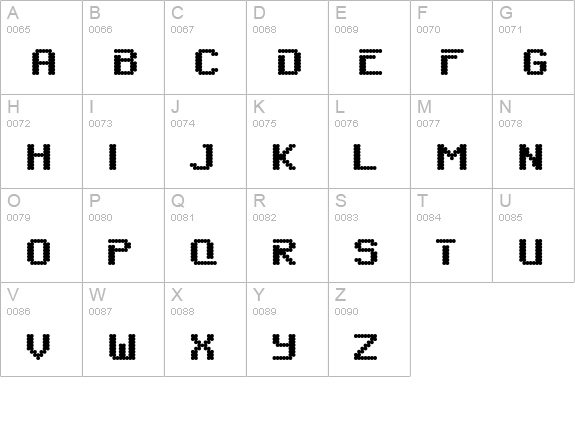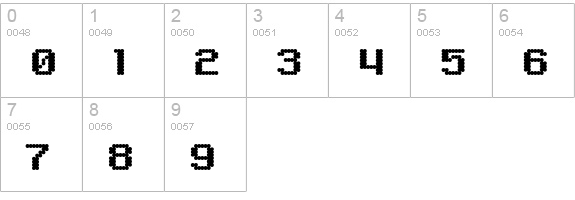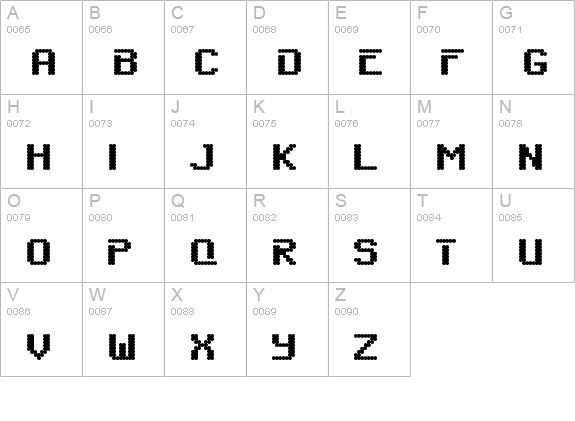
6809 Chargen Font Details
The 6809 Chargen font is a unique and stylish typeface that is perfect for adding a retro touch to your designs. This font features a futuristic and computer-like aesthetic, making it ideal for projects that require a modern and edgy look. With its distinct characters and sharp lines, the 6809 Chargen font is sure to make your text stand out. What's even better is that this font is available for free download at FontsMarket.com. You can easily access this font and use it in your projects without any cost. Whether you're working on a branding project, a poster design, or a website layout, the 6809 Chargen font will add a touch of sophistication and creativity to your work. Download it now and elevate your designs with this eye-catching typeface.